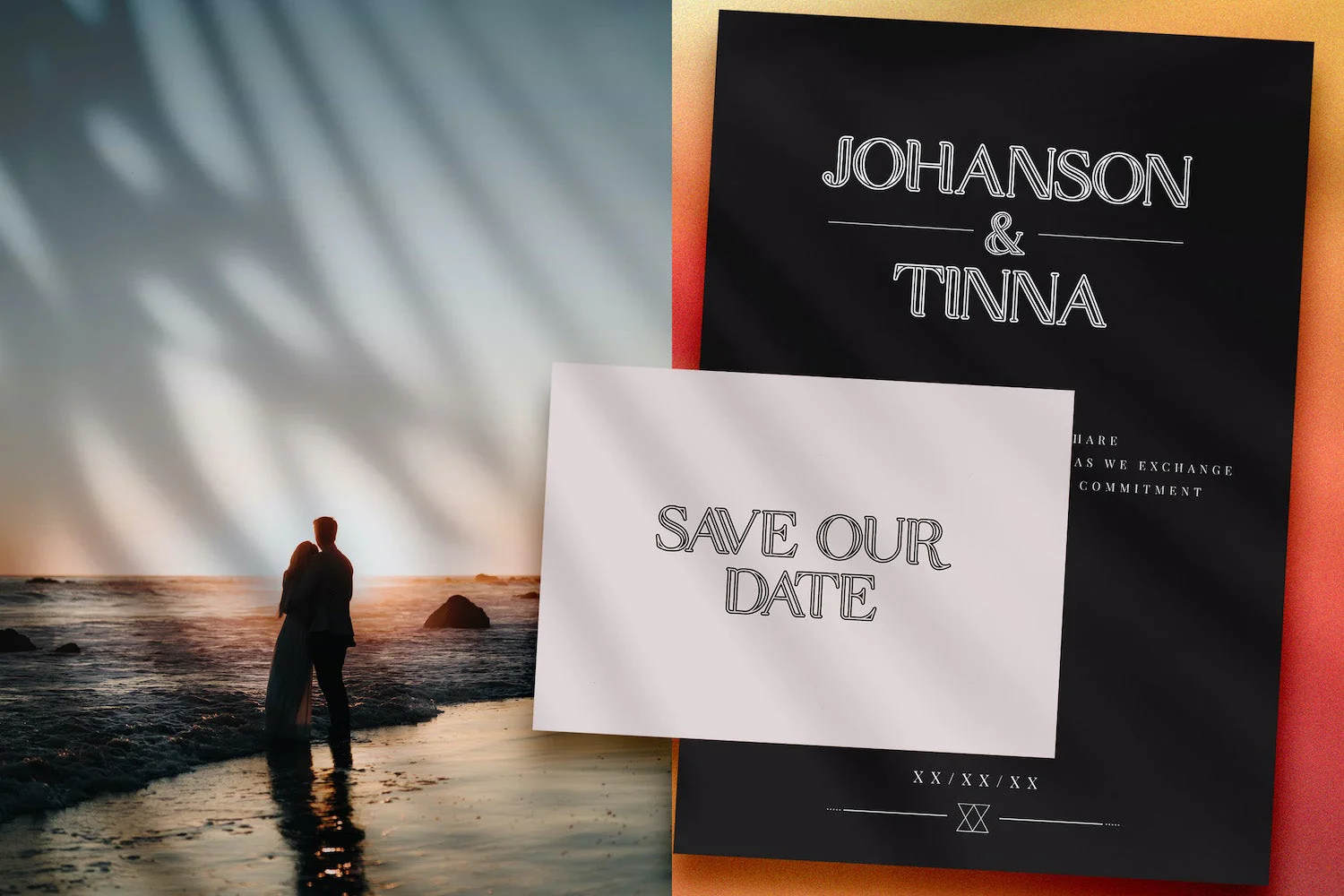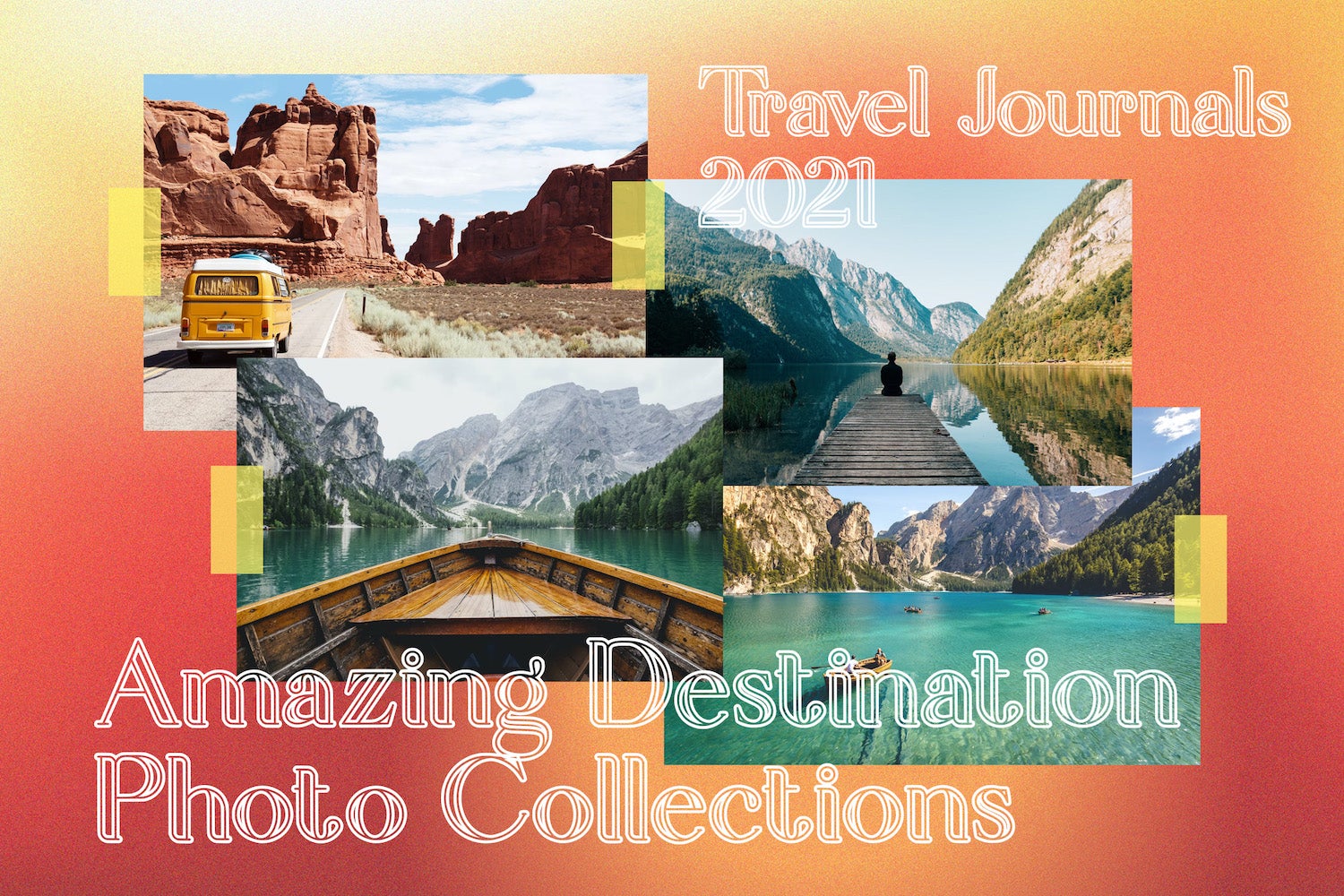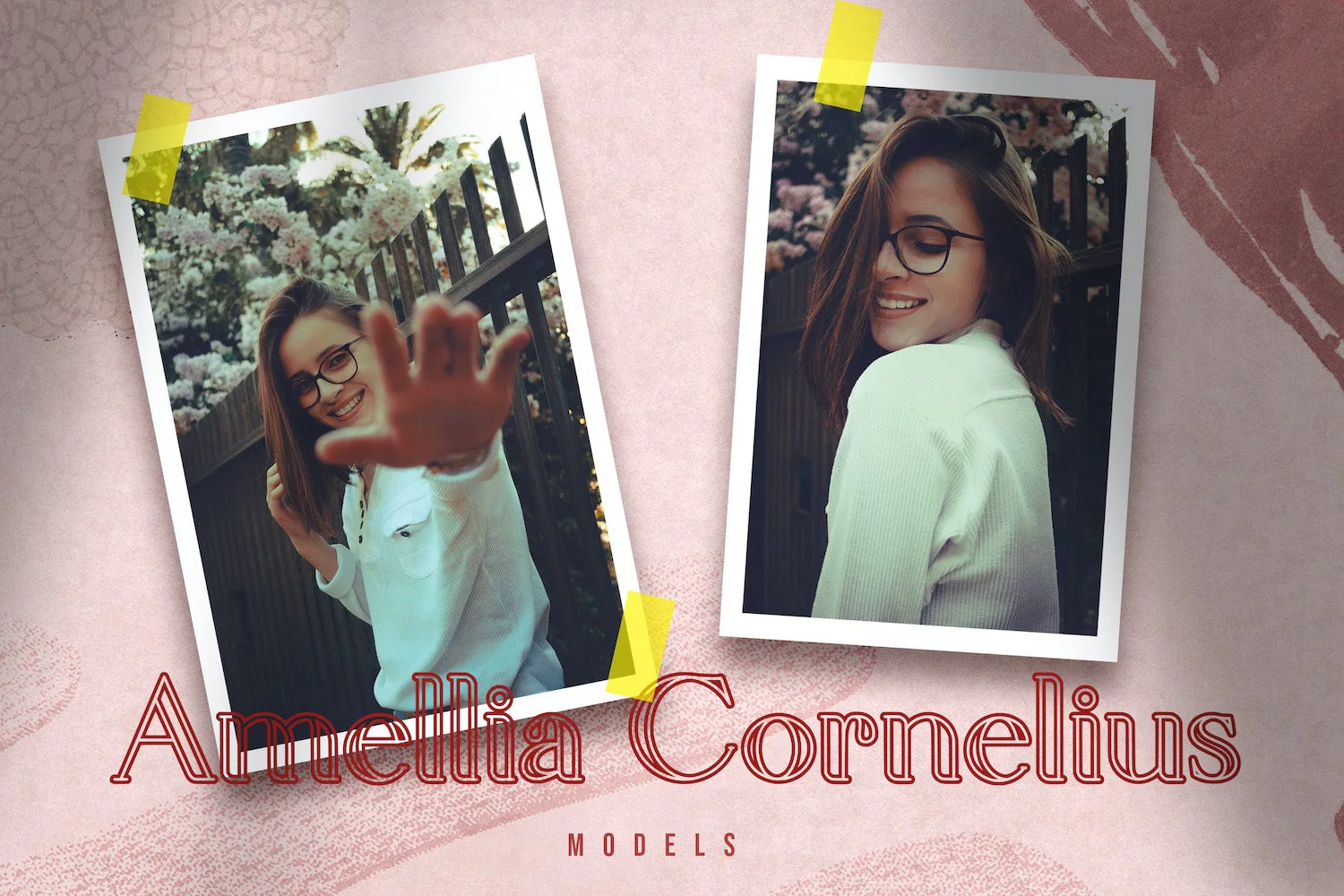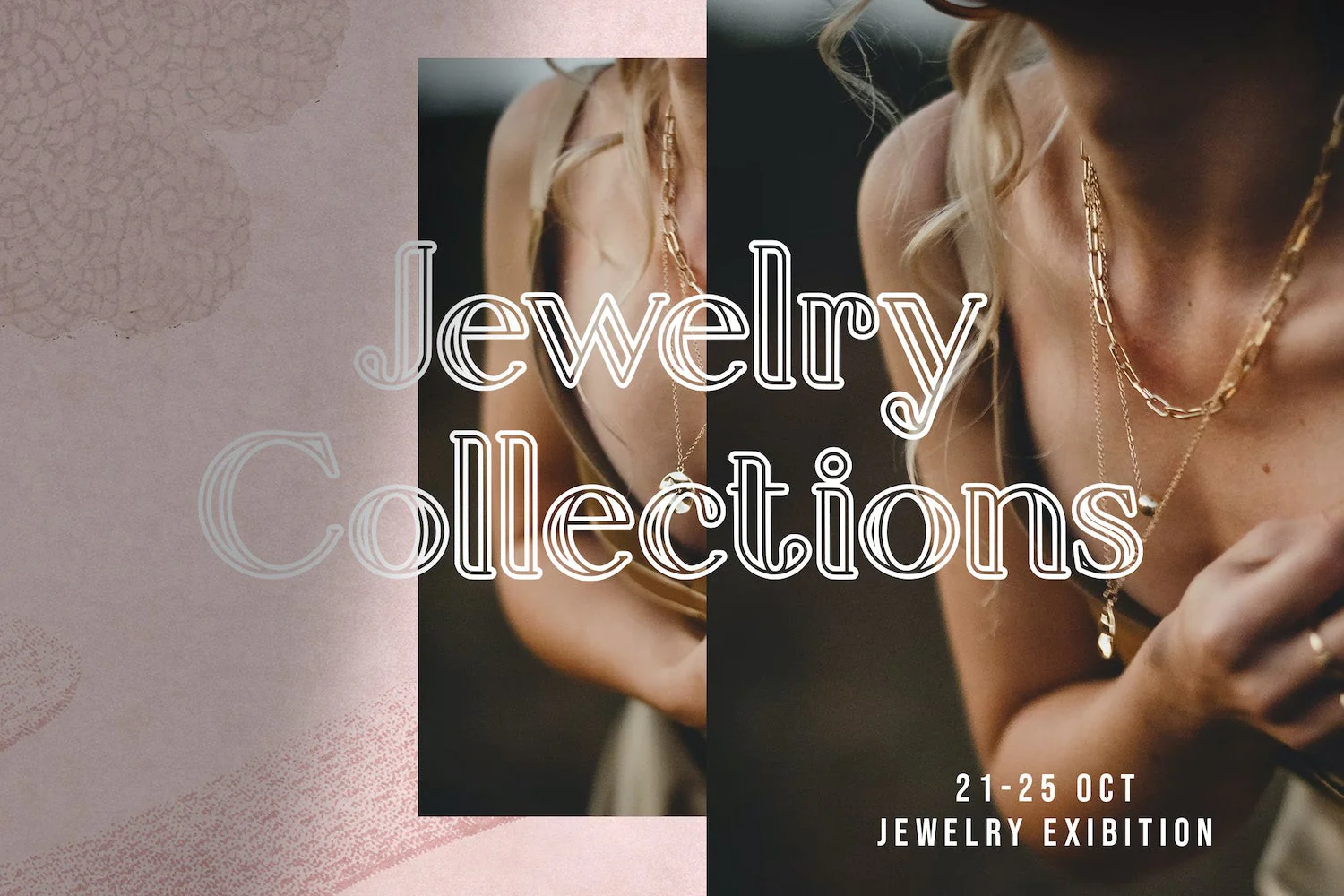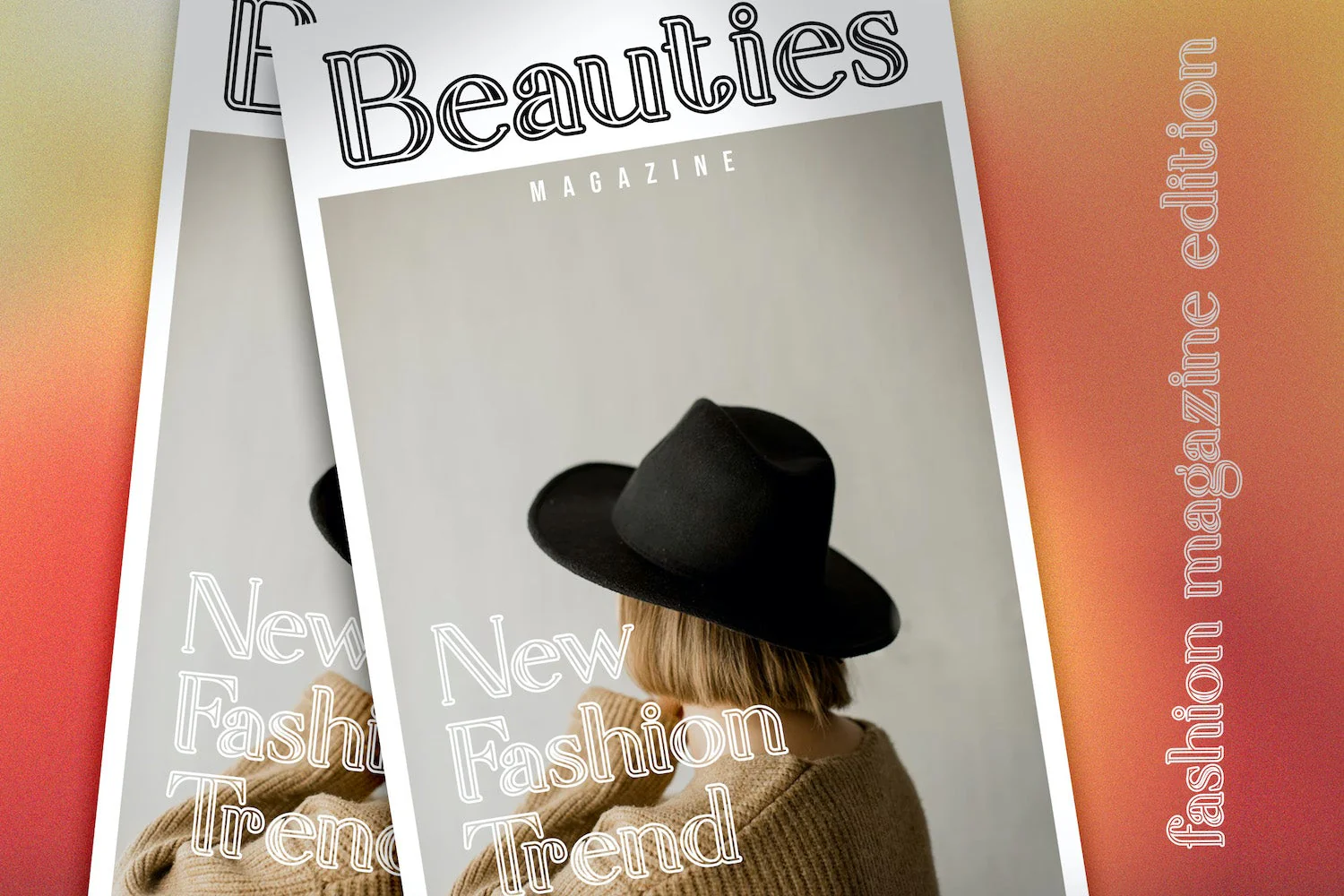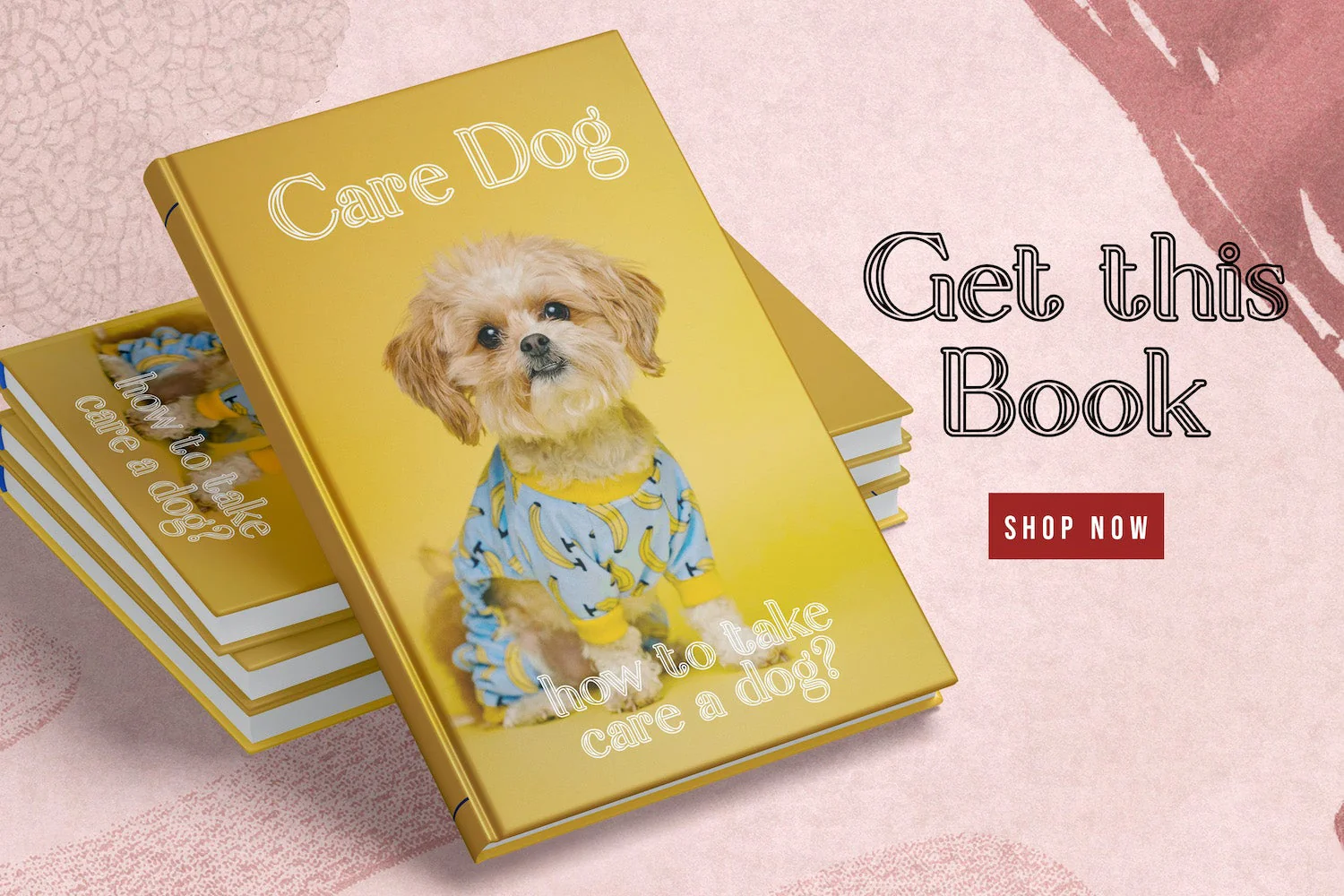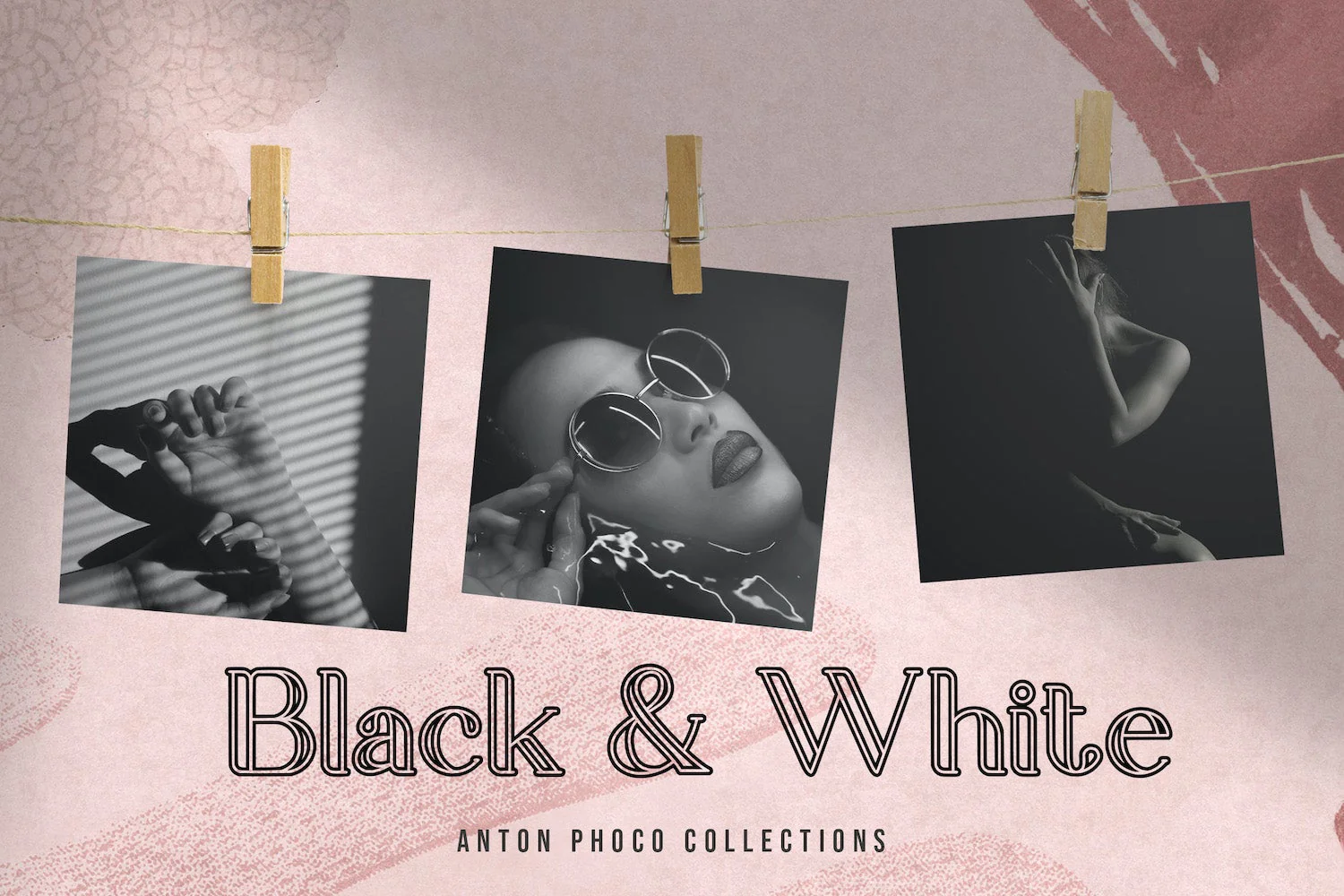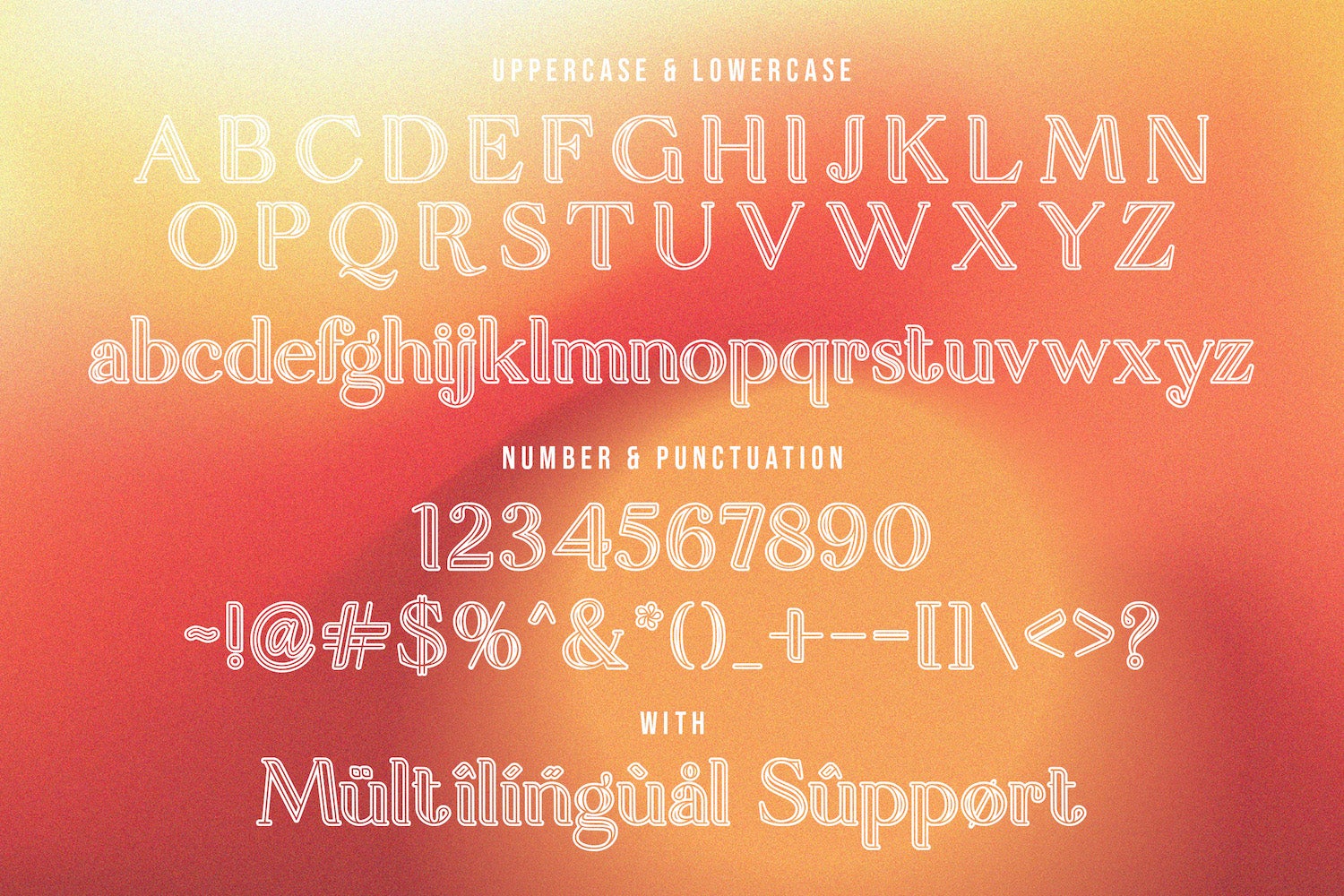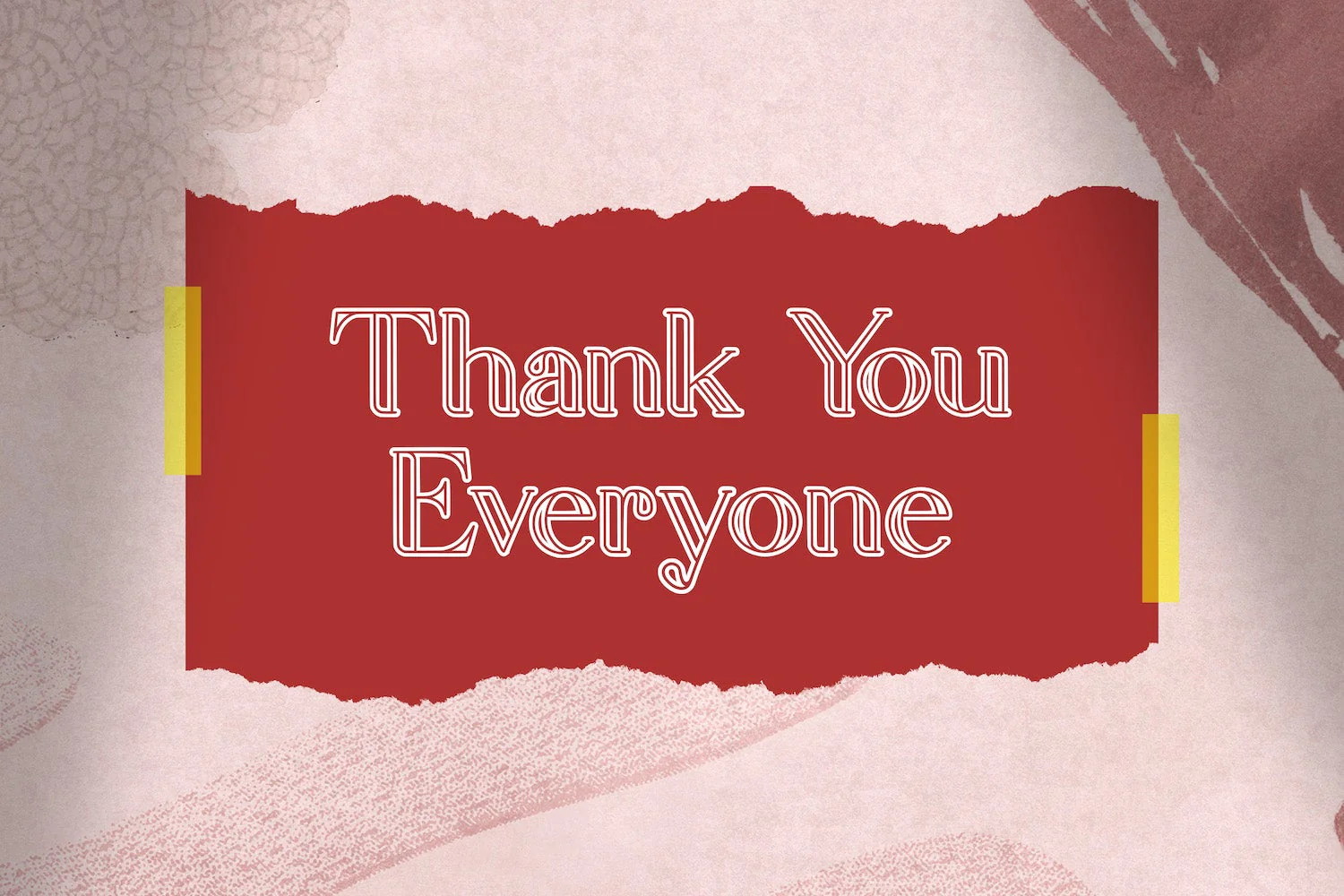
Elegante - Decorative Serif Font
Introducing Elegante - Decorative Serif Font
Elegante is a unique, decorative and modern serif font. This playful typeface will look truly outstanding in a wide range of contexts.